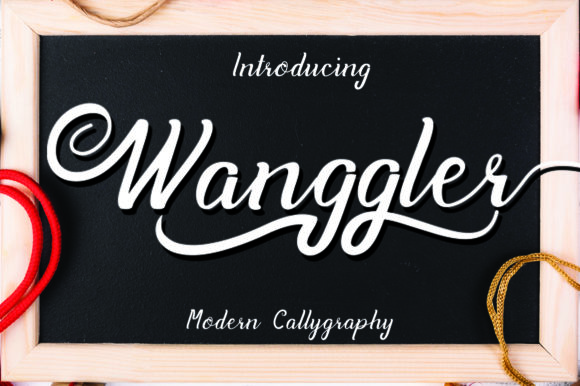
Step into the world of elegance and beauty with Wanggler, a captivating script font that dances across your designs with graceful strokes and flowing letters. Its enchanting curves and delicate details add a touch of sophistication to any project, whether it's a wedding invitation, branding, or social media posts.
Created by the talented team at maydhen studio, Wanggler is a masterpiece of digital artistry, designed to elevate your creative vision. Its versatility knows no bounds, adapting seamlessly to a myriad of styles and themes. Unleash your imagination and let Wanggler transform your words into mesmerizing works of art.
Immerse yourself in the allure of Wanggler's meticulously crafted glyphs, each one a testament to the font's exquisite craftsmanship. Its smooth lines and graceful terminals create a visual symphony, drawing the eyes effortlessly across your designs. Experience the sheer joy of typography as you witness Wanggler's ability to elevate your projects to new heights of visual appeal.
Whether you're a seasoned designer or just starting your creative journey, Wanggler is the perfect companion. Its user-friendly nature makes it accessible to all, allowing you to harness its power without any steep learning curve. Let Wanggler be your guiding light, illuminating your path toward design brilliance.
Step out of the ordinary and embrace the extraordinary with Wanggler. Its timeless beauty and versatility will add a touch of magic to your creative endeavors. With Wanggler by your side, you'll discover a whole new world of possibilities, where your imagination knows no limits. Indulge in the captivating charm of Wanggler today and elevate your designs to the realm of the extraordinary.